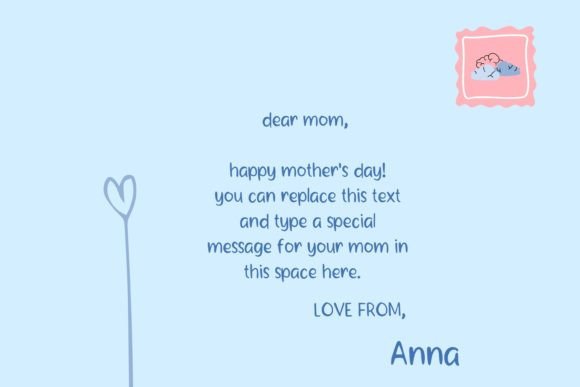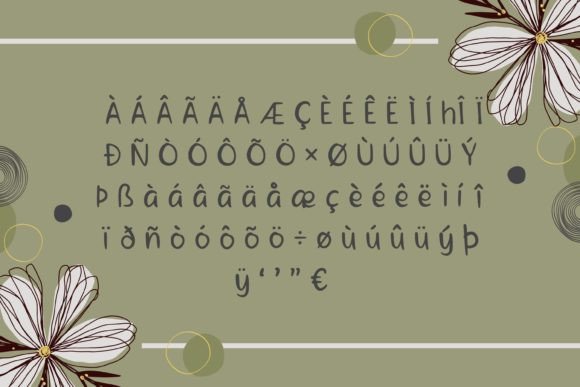
The Diapelo Font: A Friendly and Casual Handwritten Delight
I’ll never forget the time I was working on a project to create a set of greeting cards for a friend’s birthday. I had all the design elements ready – the colors, images, and layout – but I was stuck on finding the perfect font. I wanted something friendly, casual, and approachable, but not too generic or overused. That’s when I stumbled upon the Diapelo font, and it instantly became my go-to choice for the project.
Diapelo is a beautiful handwritten font that has quickly become a favorite among designers, crafters, and creative hobbyists. Its friendly and casual vibe makes it perfect for a wide range of projects, from crafts and digital design to presentations and greeting cards.
- ✅ Unique and distinctive look: Diapelo has a one-of-a-kind personality that sets it apart from other handwritten fonts.
- ✅ Ease of use: This font is incredibly easy to read and works well in both digital and print formats.
- ✅ Versatility: Diapelo is suitable for a wide range of projects, from formal to informal, and can be used in various contexts.
- ✅ OpenType features: Diapelo supports OpenType features, including glyphs and stylistic alternates, which allow for even more customization.
A Few Quirks to Keep in Mind 🤔
- ⚠️ Legibility at small sizes: While Diapelo is generally easy to read, it may become a bit tricky to decipher at very small font sizes.
- ⚠️ Limited use in formal contexts: Due to its casual nature, Diapelo might not be the best choice for very formal projects or professional documents.
The Story Behind Diapelo: Designer Inspiration
Diapelo was designed with the intention of creating a friendly and approachable handwritten font that’s perfect for everyday use. The designer wanted to create a font that would evoke a sense of warmth and personality, making it ideal for projects that require a personal touch.
Q: What type of projects is Diapelo best suited for?
A: Diapelo is a versatile font that can be used for a wide range of projects, including crafts, digital design, presentations, greeting cards, and more.
Q: Does Diapelo support OpenType features?
A: Yes, Diapelo supports OpenType features, including glyphs and stylistic alternates, which allow for even more customization.